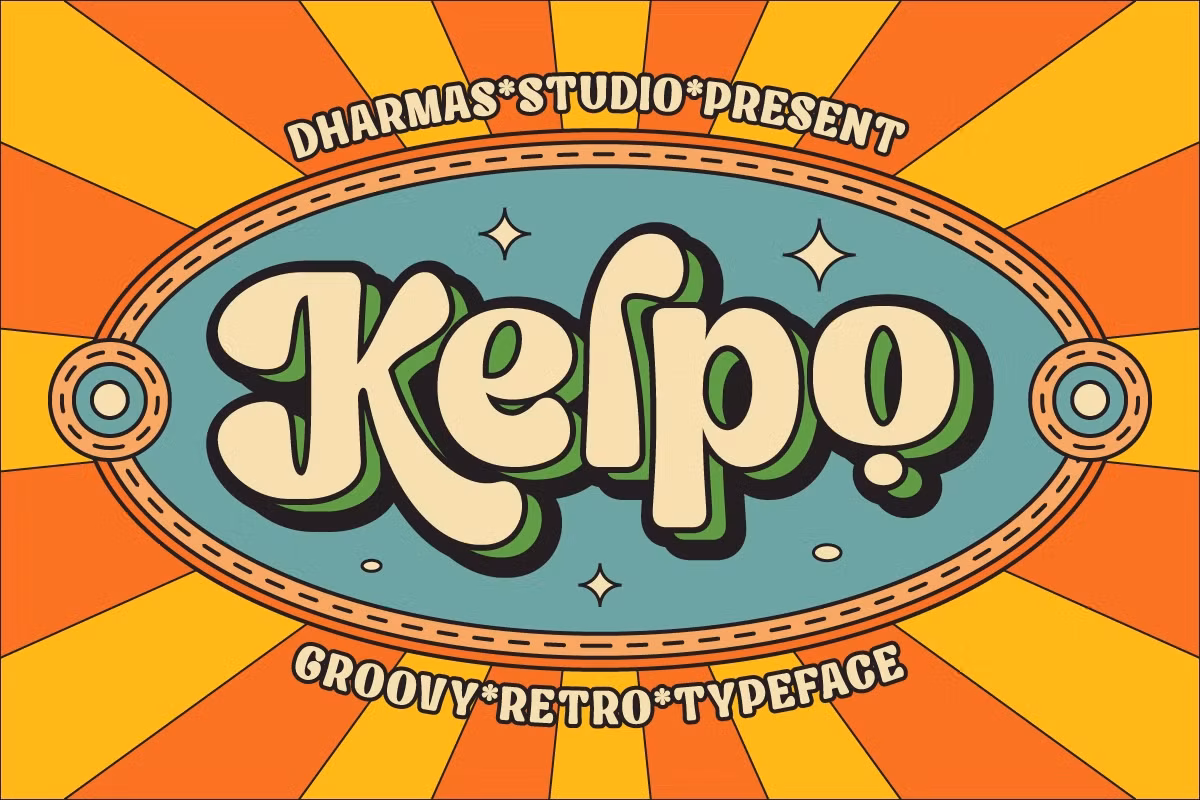
Kelpo - Groovy Retro Typeface Free Download
Turn up the vintage vibes with the Kelpo - Groovy Retro Typeface Free Download — a bold, funky typeface bursting with nostalgic character. Inspired by 70s design trends and groovy aesthetics, Kelpo is perfect for retro branding, music posters, apparel design, packaging, and colorful social media graphics.
With its playful curves, thick strokes, and bubbly personality, this font adds instant soul and positivity to your work. It’s fun, funky, and impossible to ignore. Whether you're working on a festival flyer or a quirky lifestyle brand, Kelpo brings joyful energy and throwback flavor to every project.